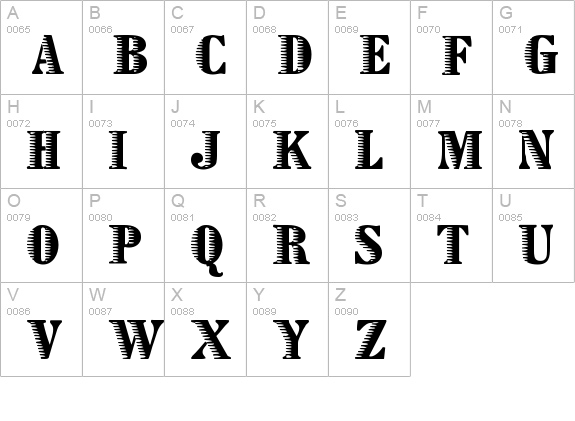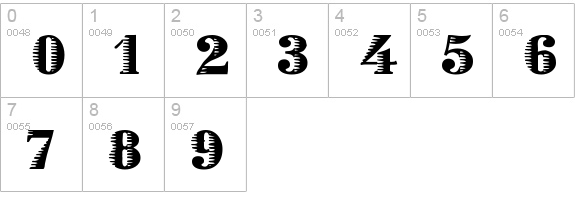
Zebraesq Font Details
Introducing Zebraesq font - a unique and eye-catching typeface that will add a touch of whimsy to any design project. With its playful zebra-inspired patterns and quirky letterforms, Zebraesq is sure to stand out and make a statement. And the best part? Zebraesq is available for free download at FontsMarket.com! This means you can easily add this fun and creative font to your collection without spending a dime. Whether you're working on a logo, branding, invitations, or any other project, Zebraesq is a versatile font that will bring a pop of personality to your designs. Don't miss out on this fantastic opportunity to enhance your creative projects with Zebraesq font - download it for free today at FontsMarket.com and let your imagination run wild!